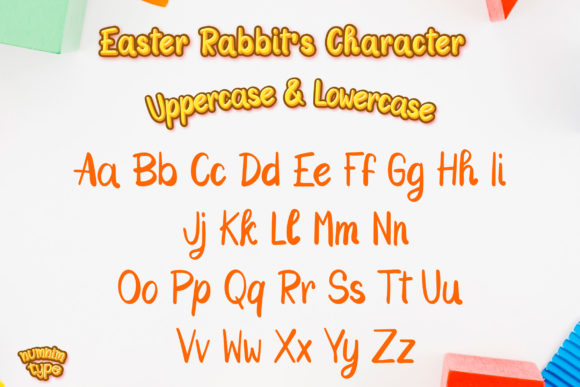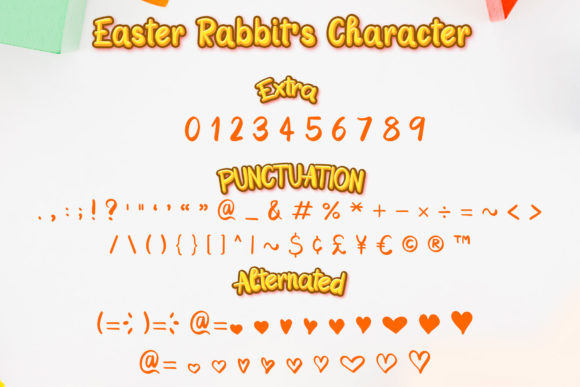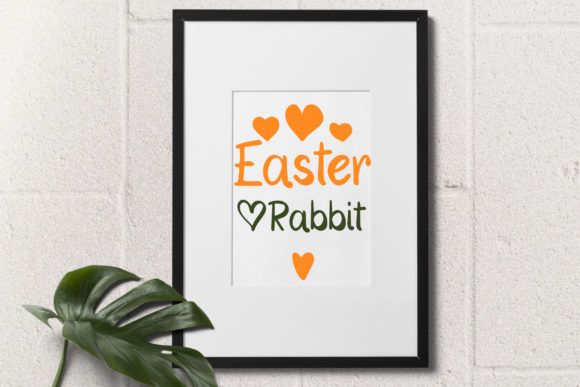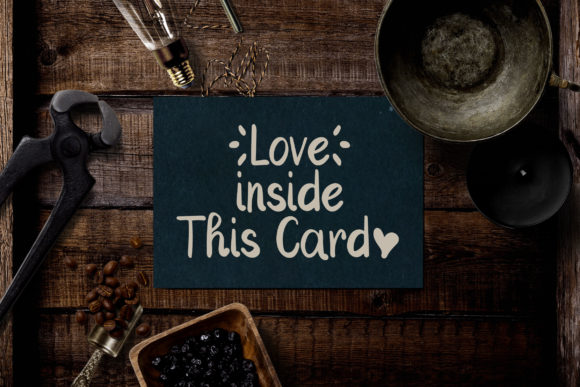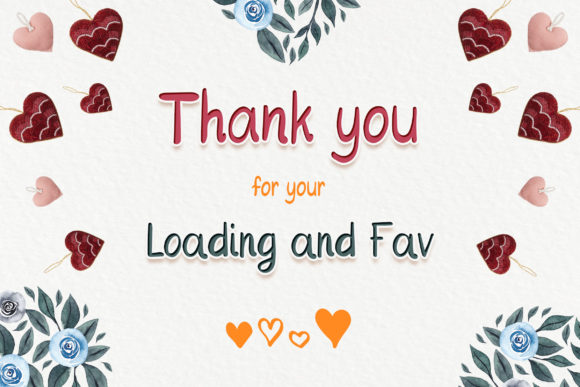
The Easter Rabbit Font: A Joyful Companion for Your Design Projects
An Honest Review of Easter Rabbit Font
- ✨ Unique and playful style: Easter Rabbit is a handwritten font that exudes joy and friendliness, making it perfect for designs related to children, schools, or Easter-themed projects.
- ✅ Flexible and versatile: This font can be used for a wide range of design projects, from invitations and posters to social media graphics and crafts.
- 💕 Cute doodle elements: The font features adorable doodle elements that add a touch of whimsy to your designs.
While Easter Rabbit is an amazing font, there are a few things to keep in mind:
- ⚠️ Limited use in formal designs: Due to its playful nature, Easter Rabbit might not be the best choice for formal or professional designs.
- 🤔 Some characters may require manual adjustments: As with any font, you might need to make some manual adjustments to ensure that certain characters fit perfectly in your design.
The Designer Inspiration Behind Easter Rabbit
Easter Rabbit was designed with the intention of creating a font that captures the joy and playfulness of the Easter holiday. The designer wanted to create a font that would be perfect for designs related to children, schools, or Easter-themed projects. With its cute doodle elements and flexible style, Easter Rabbit is sure to bring a smile to your face and inspire your creativity.
Q: What is the Easter Rabbit font best used for?
A: Easter Rabbit is best used for designs related to children, schools, or Easter-themed projects, such as invitations, posters, social media graphics, and crafts.